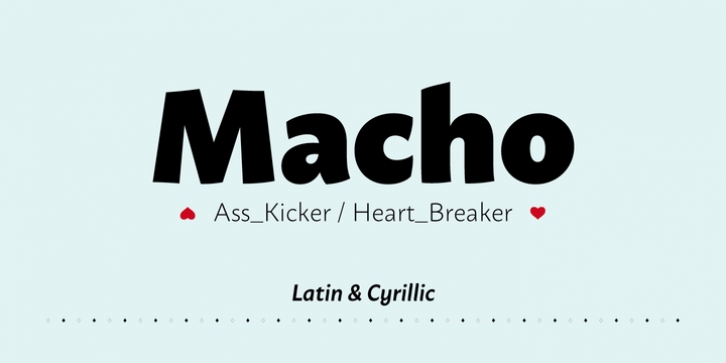
Publisher: Dada Studio
Macho has a complex nature. He’s a true “gentle giant”. He kicks asses as a splendid fighter, but also, being a gentle lover, leaves girls breathless. You can count on him in any situation and it’s always good to have him by your side.
The brave Macho supports all Latin languages, as well as Cyrillic.
His família consists of nine weights plus matching italics. It is stuffed up with various OpenType features such as small capitals, fractions, local forms, ordinals, alternates, ligatures and a full set of superscript and subscript glyphs.
A good buddy of Clavo, Servus and Sharik.